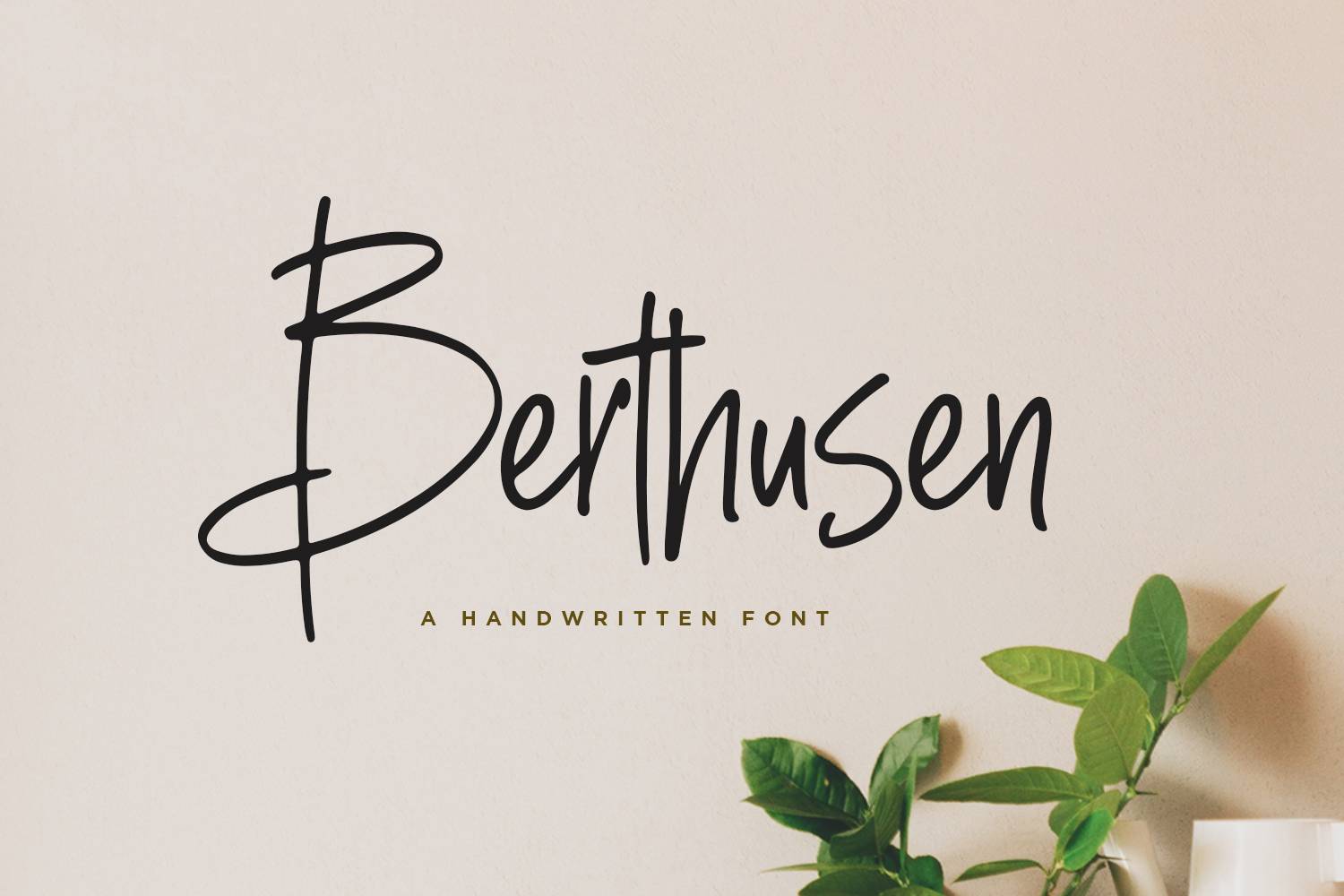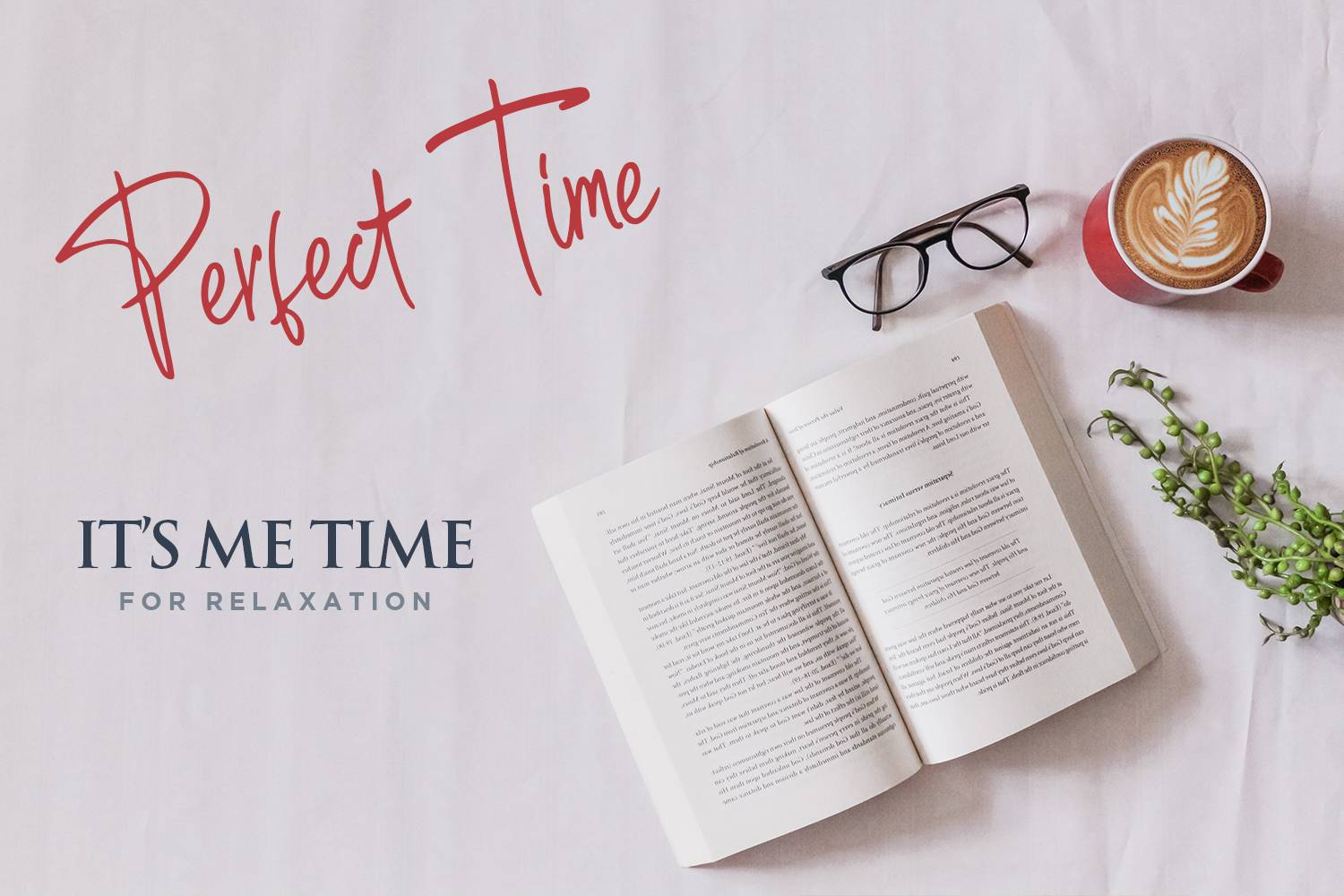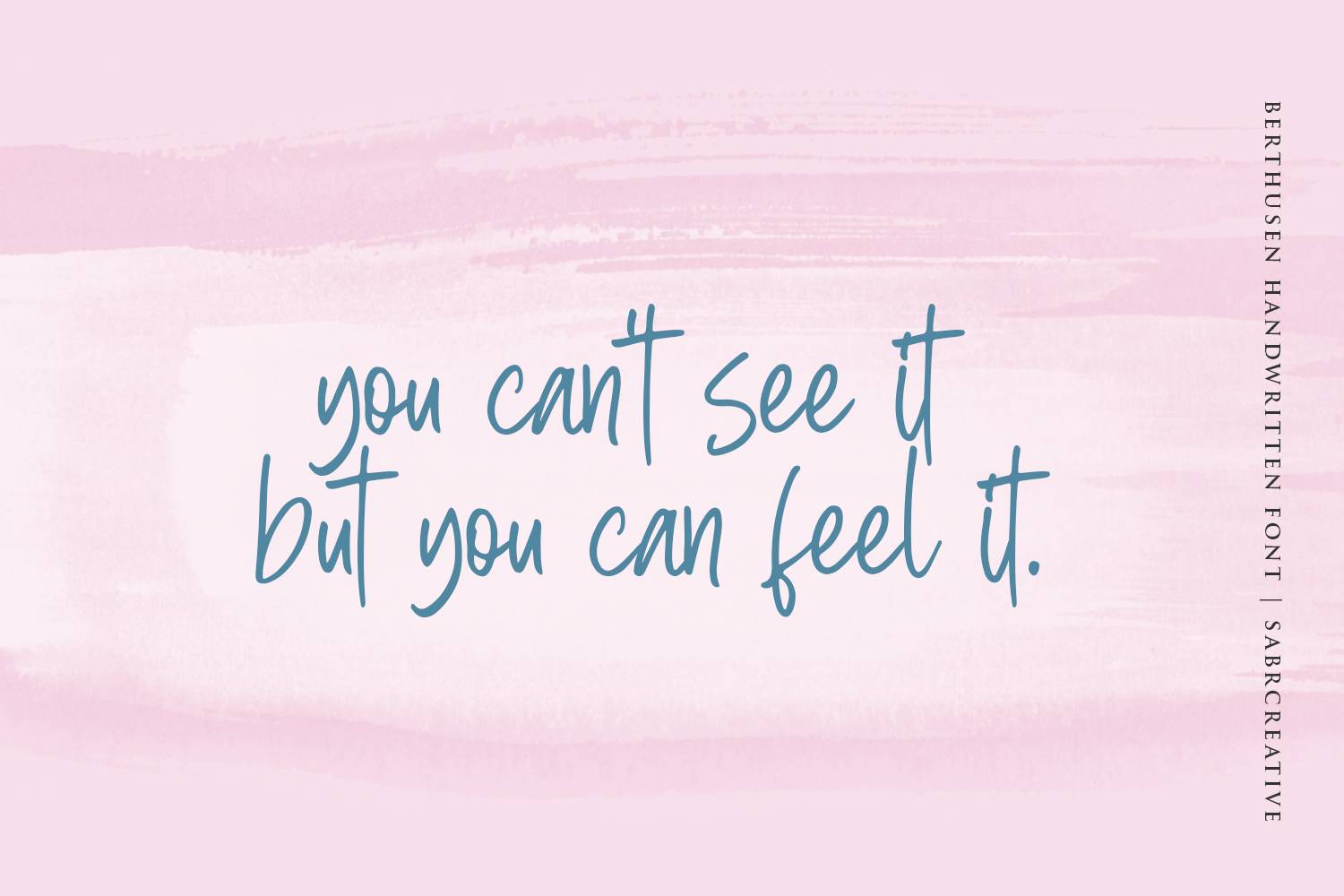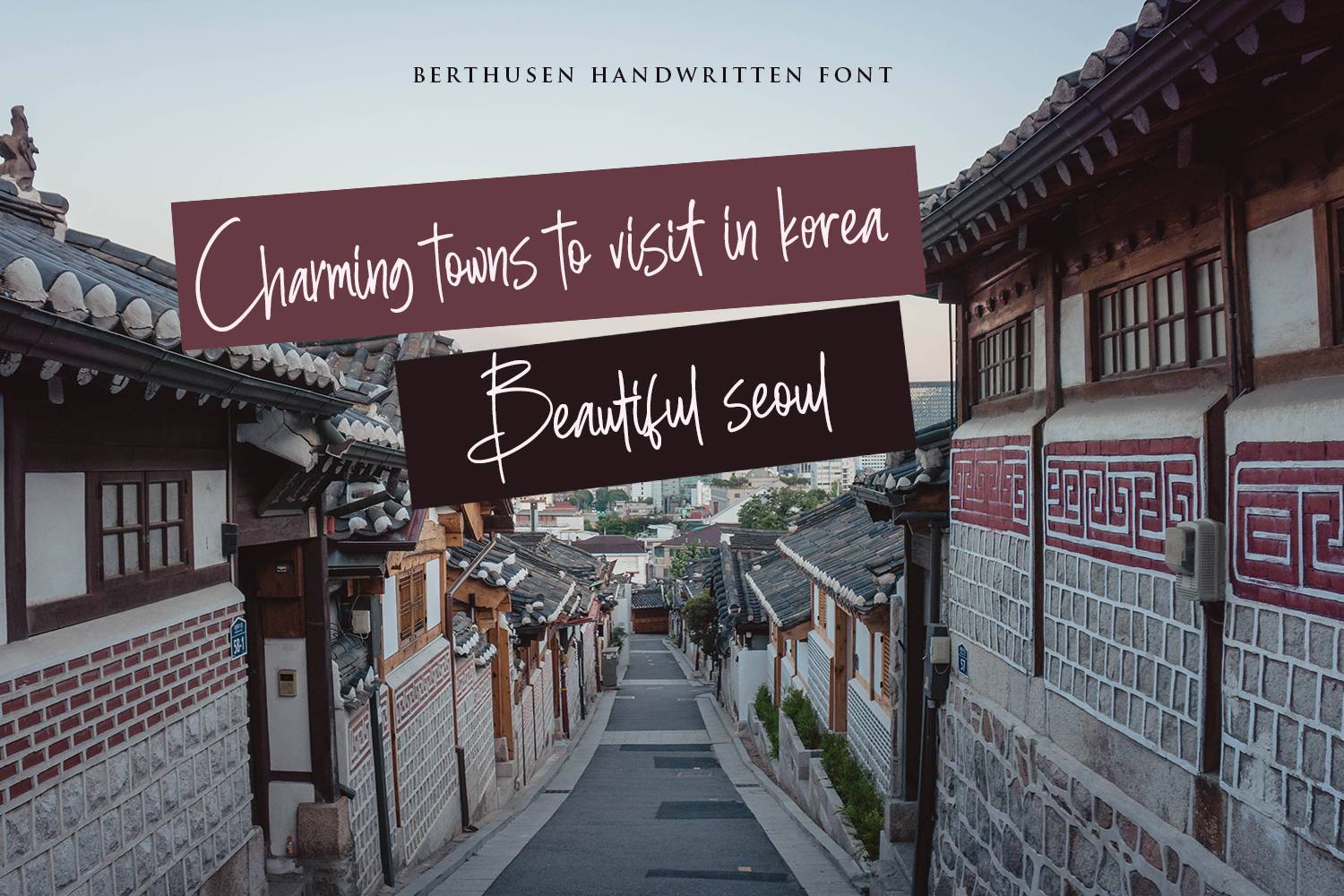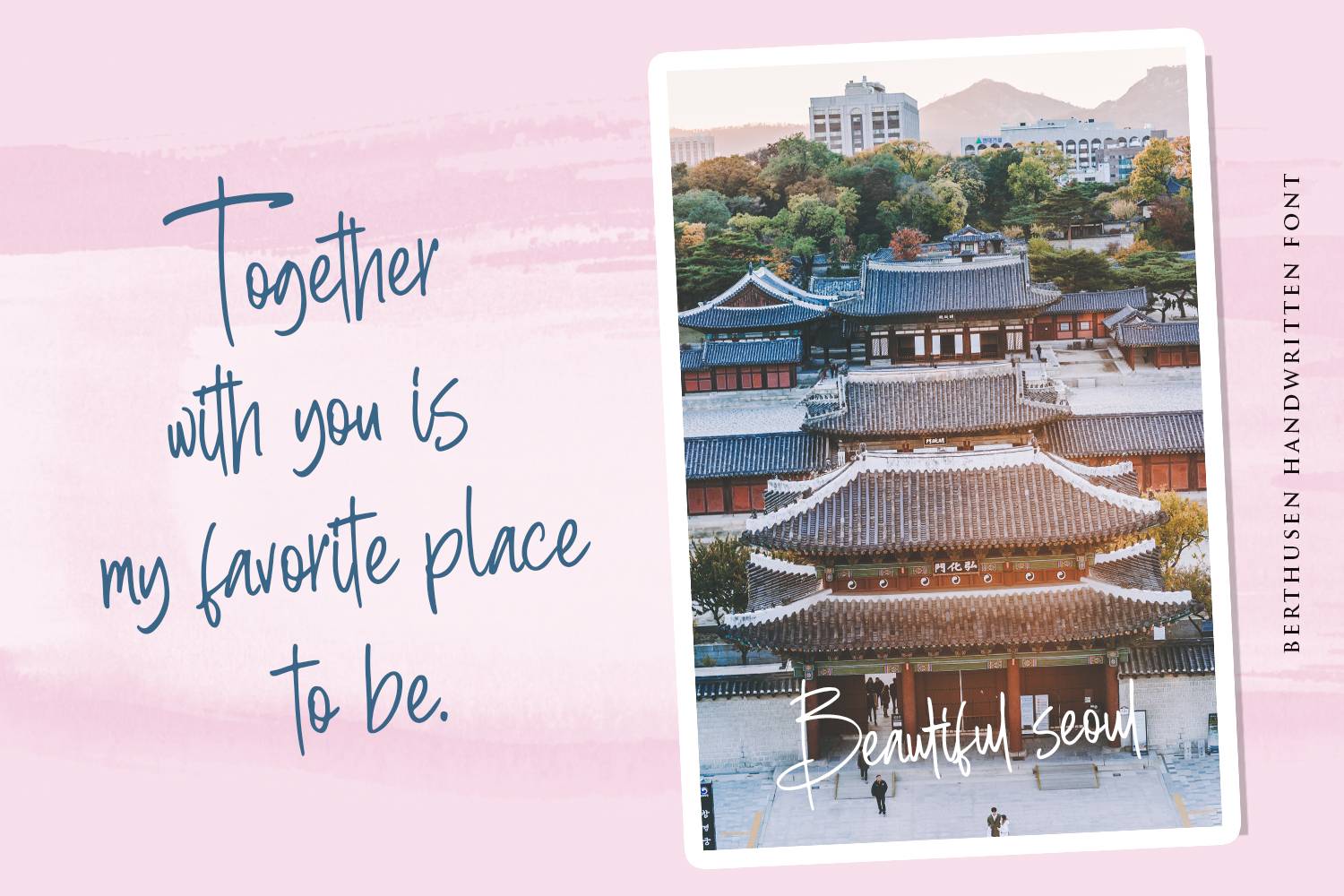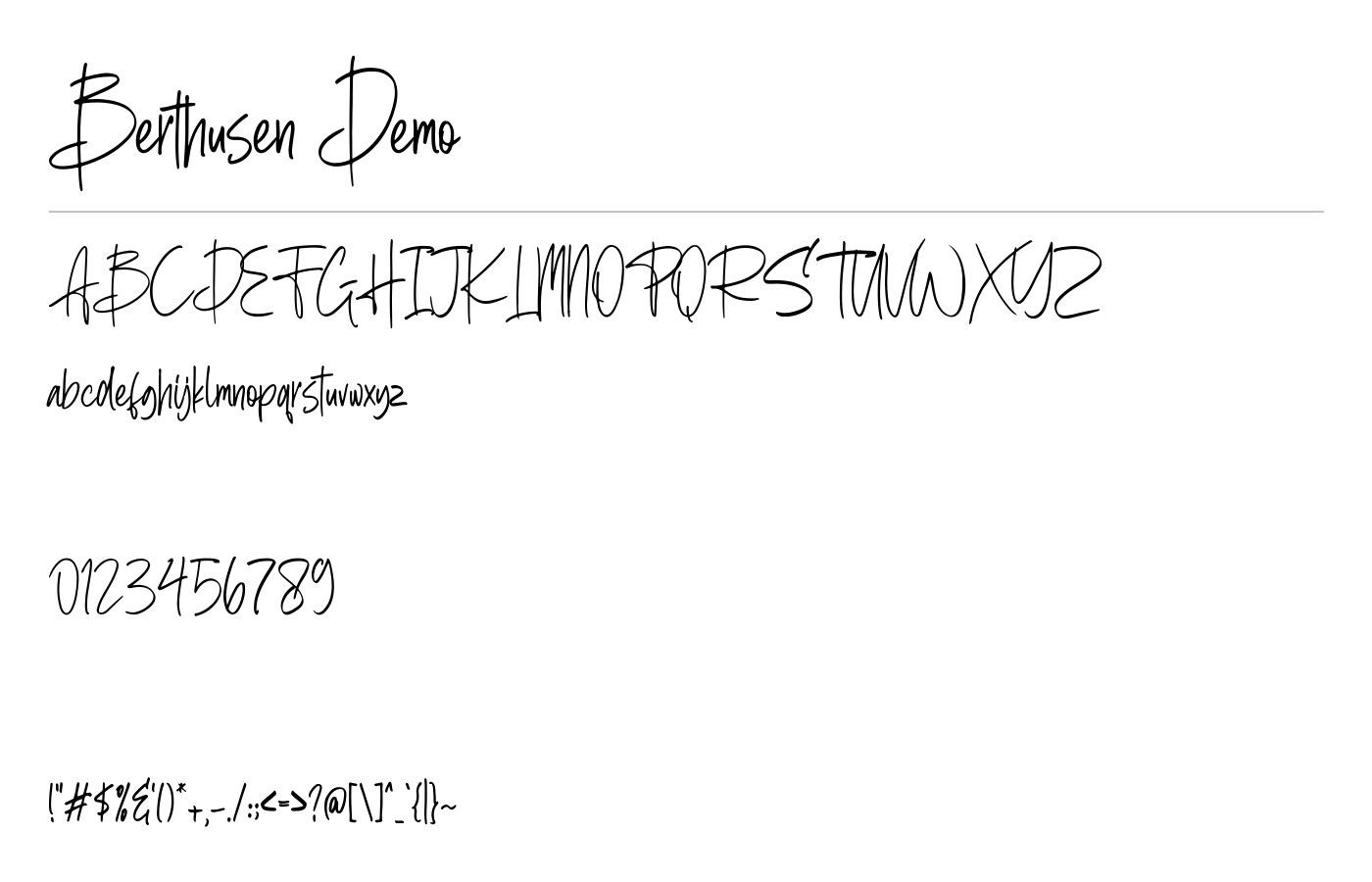
Berthusen is a thin, playful handwritten script font with a casual and spontaneous feel, characterized by elongated, slightly irregular letterforms and a lively, airy rhythm. Its light weight and narrow width make it ideal for creative and informal uses such as personalized branding, invitations, and artistic headlines where a touch of personality and friendliness is desired. This font works well in designs seeking a modern, approachable, and unique handwritten style.
Berthusen Font
About Berthusen Font
| Font family | Berthusen Font |
| Designer | Sabrcreative Studio |